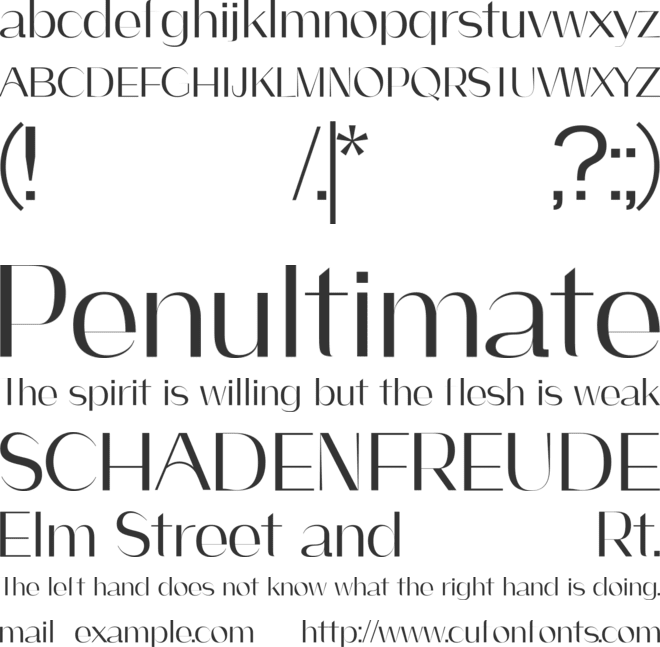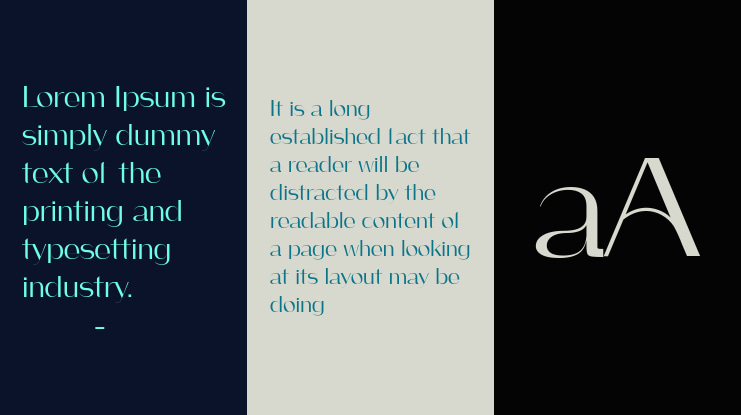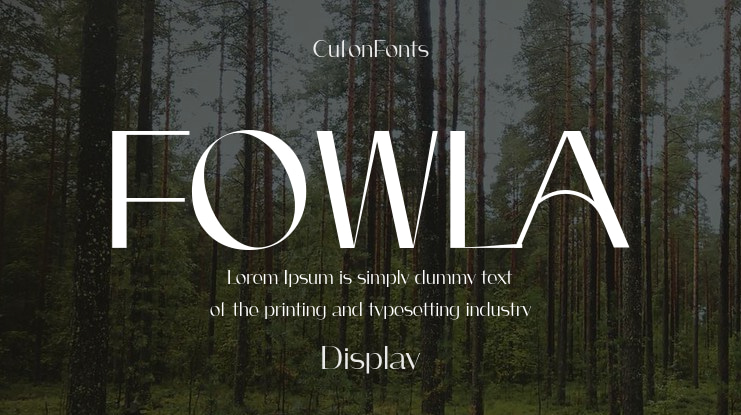
π¨ Font Name: FOWLA by Minimalist Art Studio
π¨ Font Description: FOWLA is an elegant sans serif with soft geometry and organic warmth, ideal for branding, editorial, and lifestyle design.